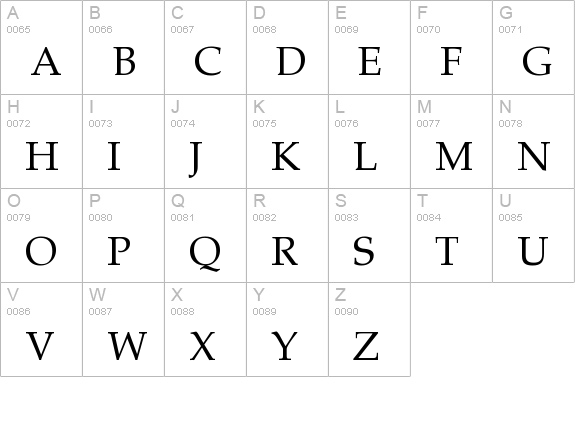
QTPalatine Regular is the standard, neutral variant in the QTPalatine typeface family \xE2\x80\x94 well suited to general body text, paragraphs, and standard typographic work.
QTPalatine Regular is a beautifully crafted font that combines elegance and versatility. With its clean lines and classic design, this font is perfect for a wide range of projects, from branding and advertising to invitations and typography. The smooth curves and balanced proportions of QTPalatine Regular give it a timeless appeal that will never go out of style. What makes QTPalatine Regular even more appealing is the fact that it is available for free. Yes, that's right, you can download this amazing font without spending a dime. It is freely available to download at FontsMarket.com, a trusted source for high-quality fonts. Whether you are a professional designer looking to add a touch of sophistication to your work or a casual user who wants to enhance the look of their personal projects, QTPalatine Regular is the perfect choice. Its versatility allows it to be used in various contexts, from elegant logos and headings to elegant body text. The attention to detail in QTPalatine Regular is evident in every character, making it a joy to work with. The font's legibility and readability ensure that your message will be communicated clearly and effectively. Its wide range of weights and styles provides you with the flexibility to create unique and impactful designs. So why wait? Download QTPalatine Regular now and experience the beauty and versatility of this font for yourself. It's time to elevate your design projects with a font that is not only visually stunning but also freely available to download at FontsMarket.com.